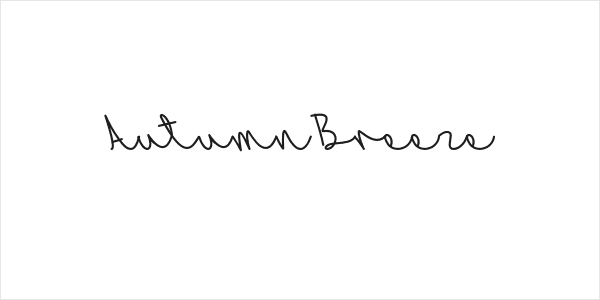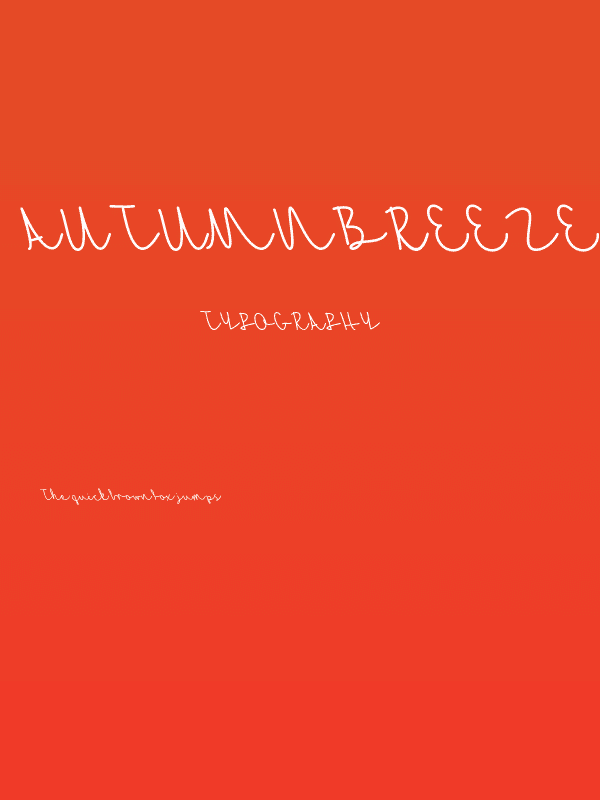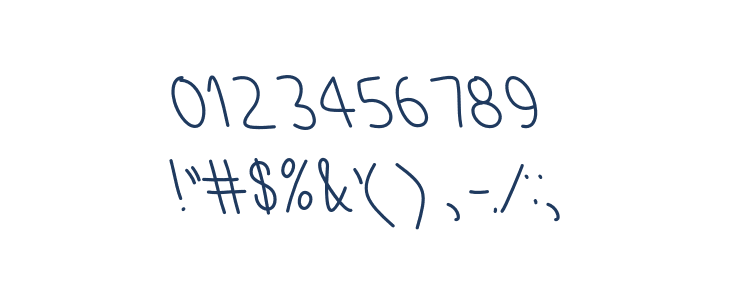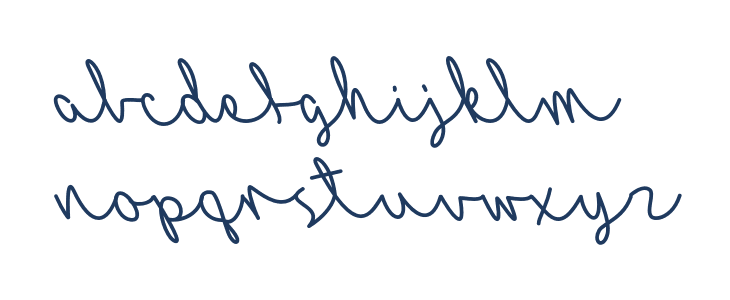
AutumnBreeze Font
AutumnBreeze Description
This font features a playful and casual handwritten style, characterized by its smooth, flowing curves and slightly irregular letterforms. The uppercase letters are distinct with a whimsical touch, while the lowercase letters maintain a consistent, easy-to-read flow. Numbers and special characters are designed to match the overall aesthetic, adding to the font's charm. The strokes are uniform in thickness, providing a balanced appearance that is both inviting and approachable. This font exudes a sense of warmth and friendliness, making it ideal for projects that require a personal touch.
| Use Case | Headlines, Informal text, Personal projects |
| Proposed Projects | Greeting cards, personal invitations, casual branding, social media graphics, and children's book illustrations. |